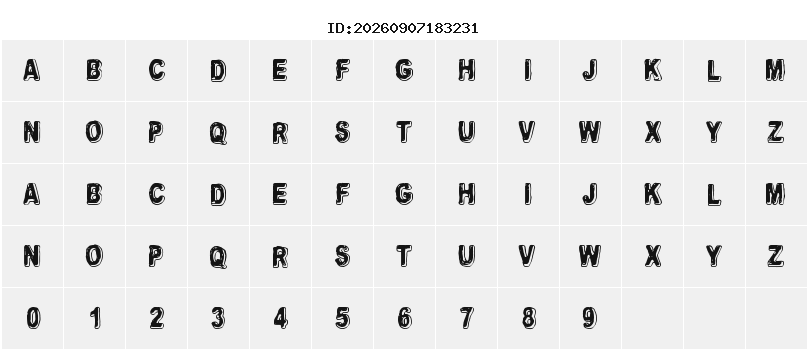
• Font Name: Uglygoodbaddark
• Full Font Name: Uglygoodbaddark
About Uglygoodbaddark.ttf
Uglygoodbaddark.ttf is a modern, elegant sans-serif font designed for ultimate readability and visual harmony. Perfect for branding, headlines, web design, and print materials.